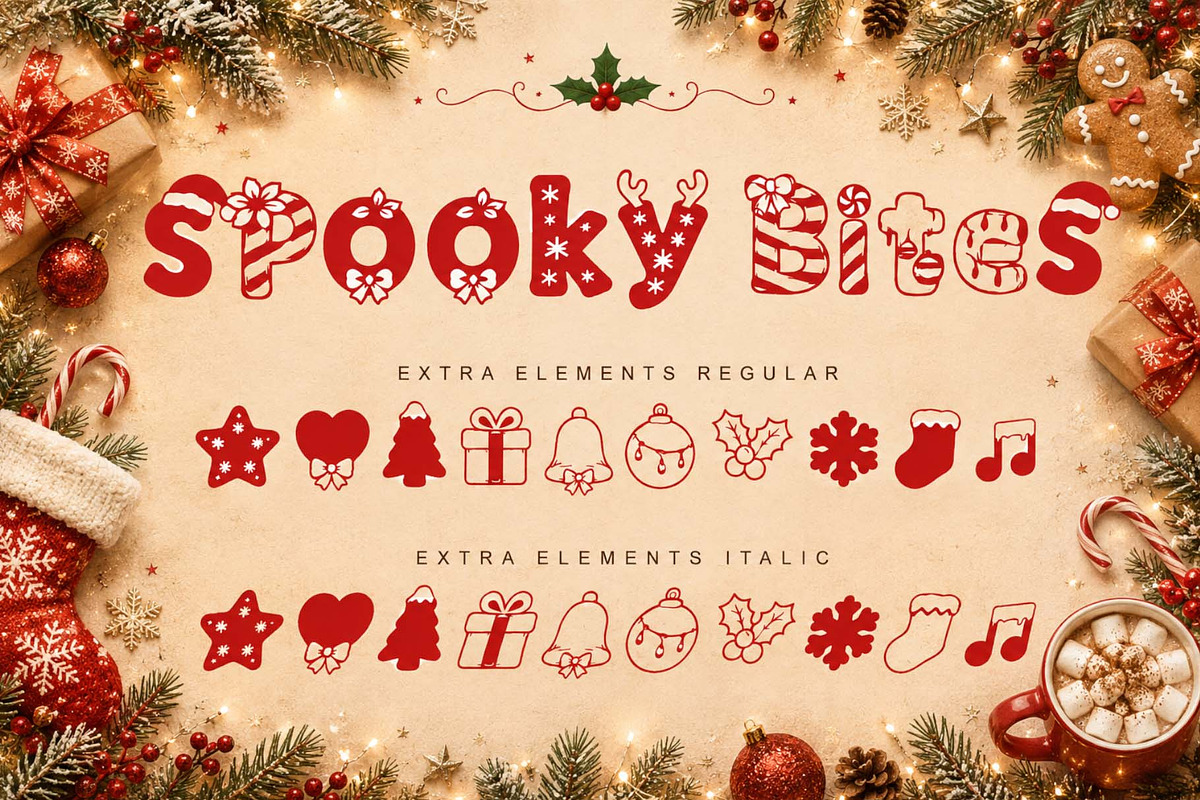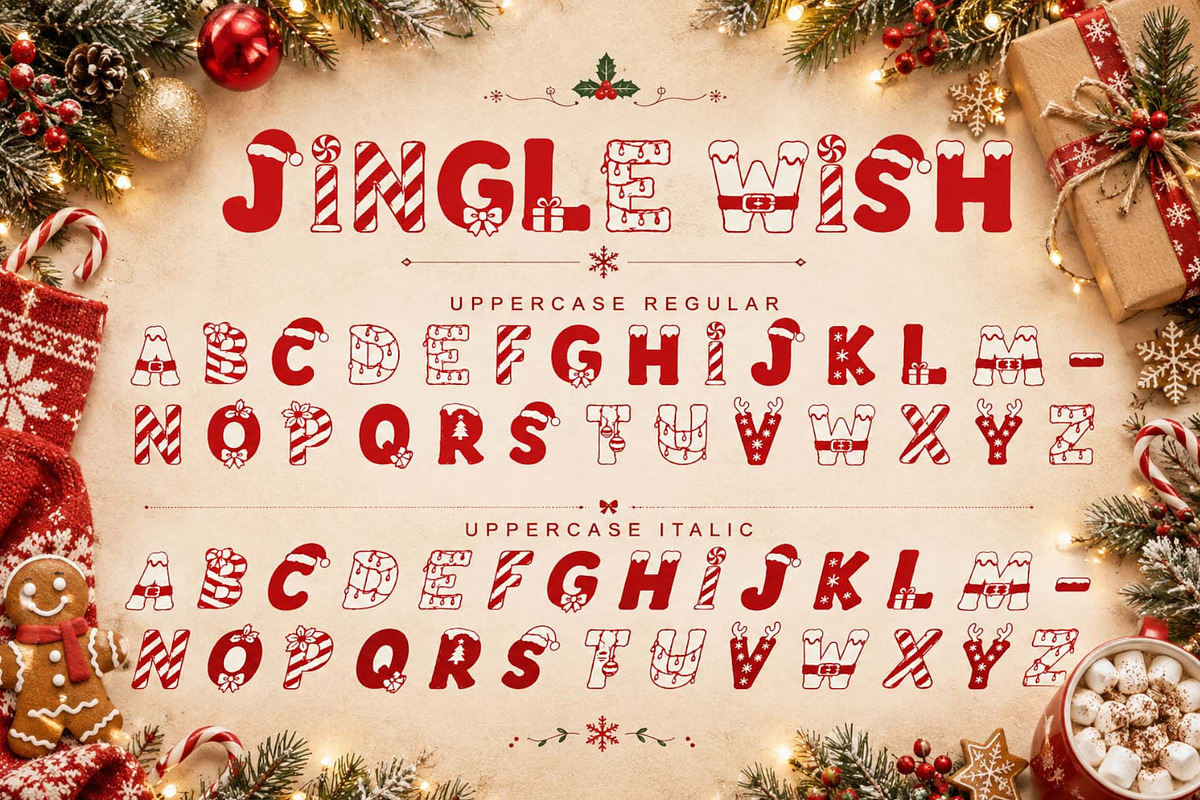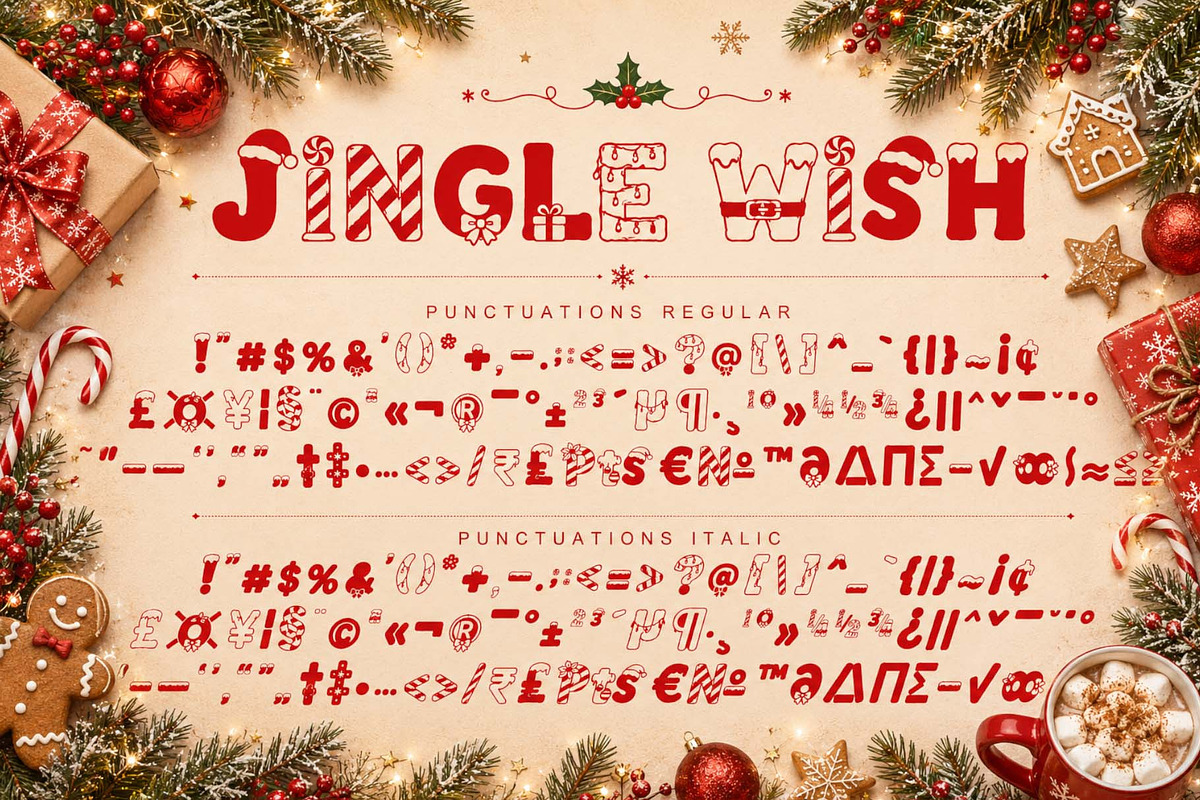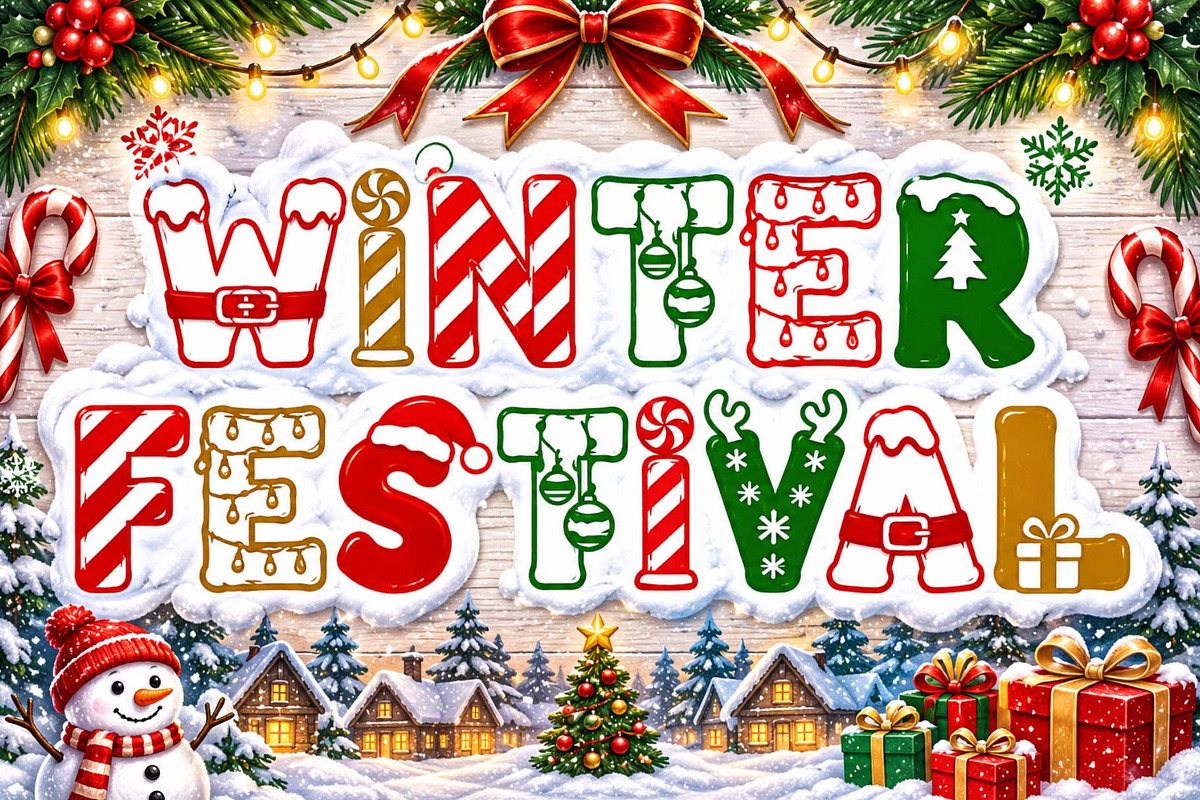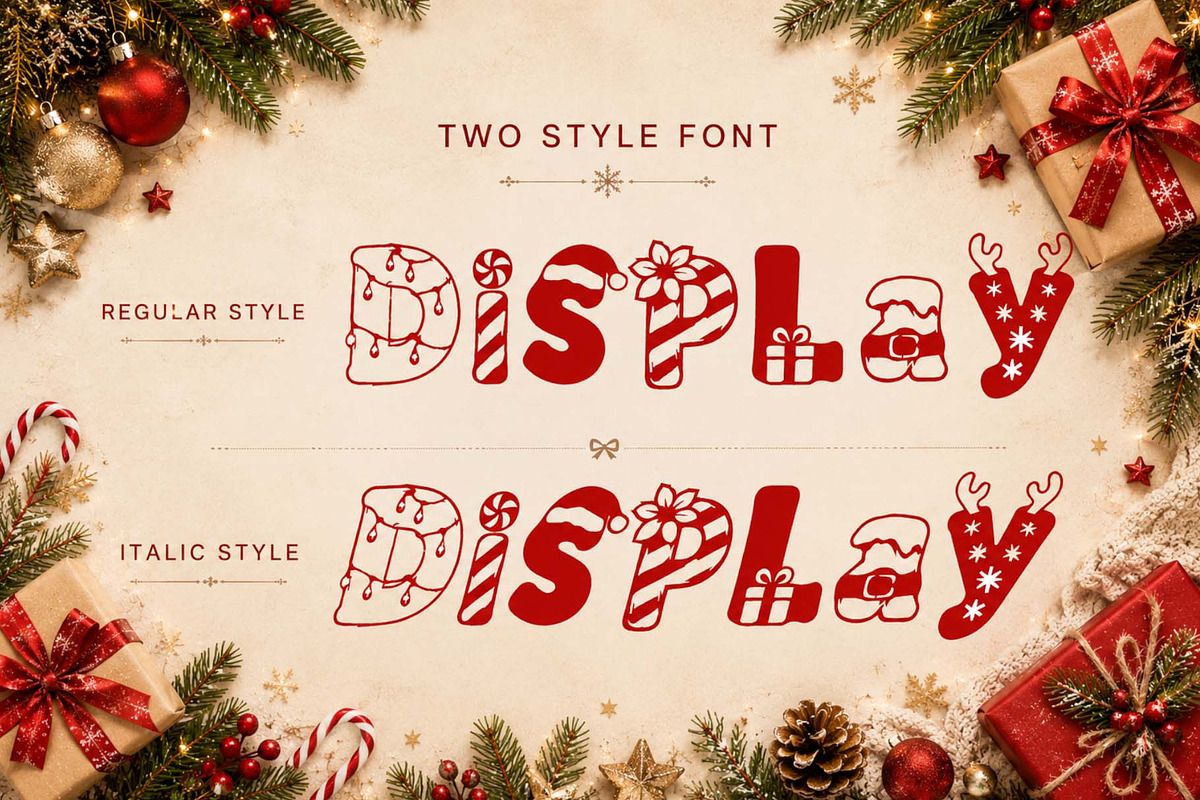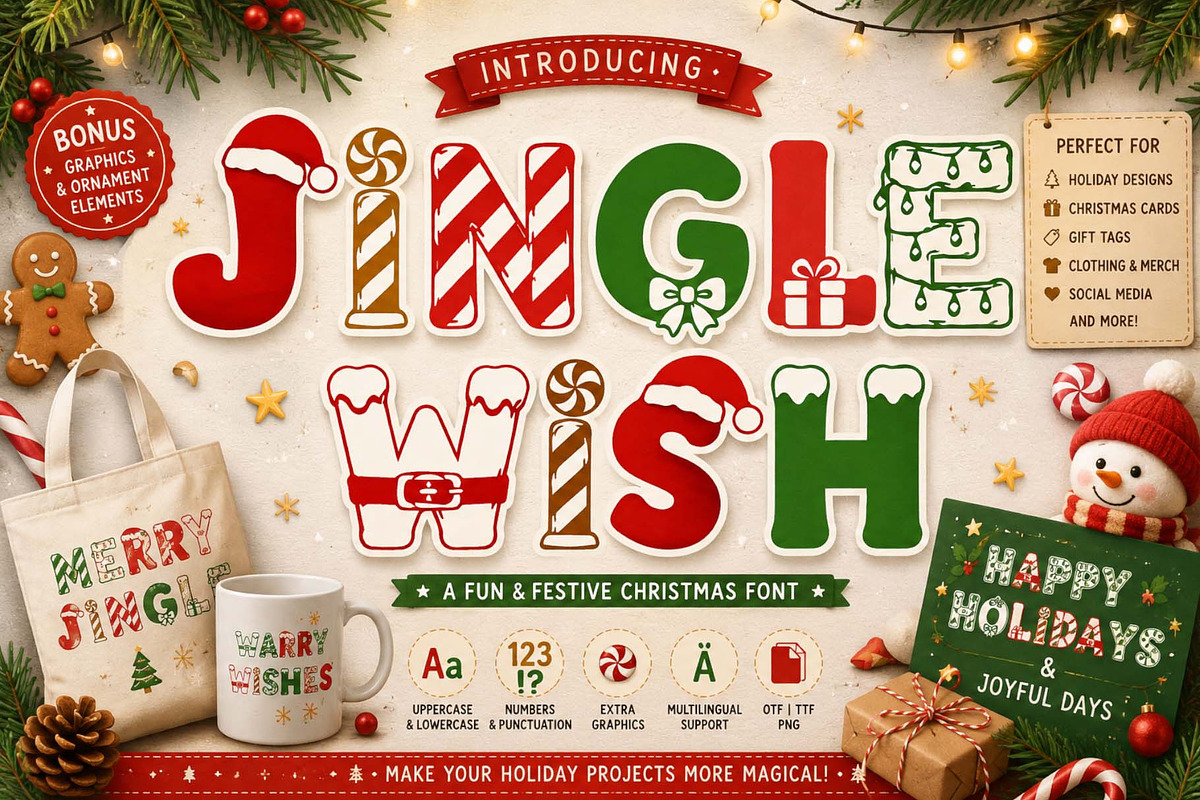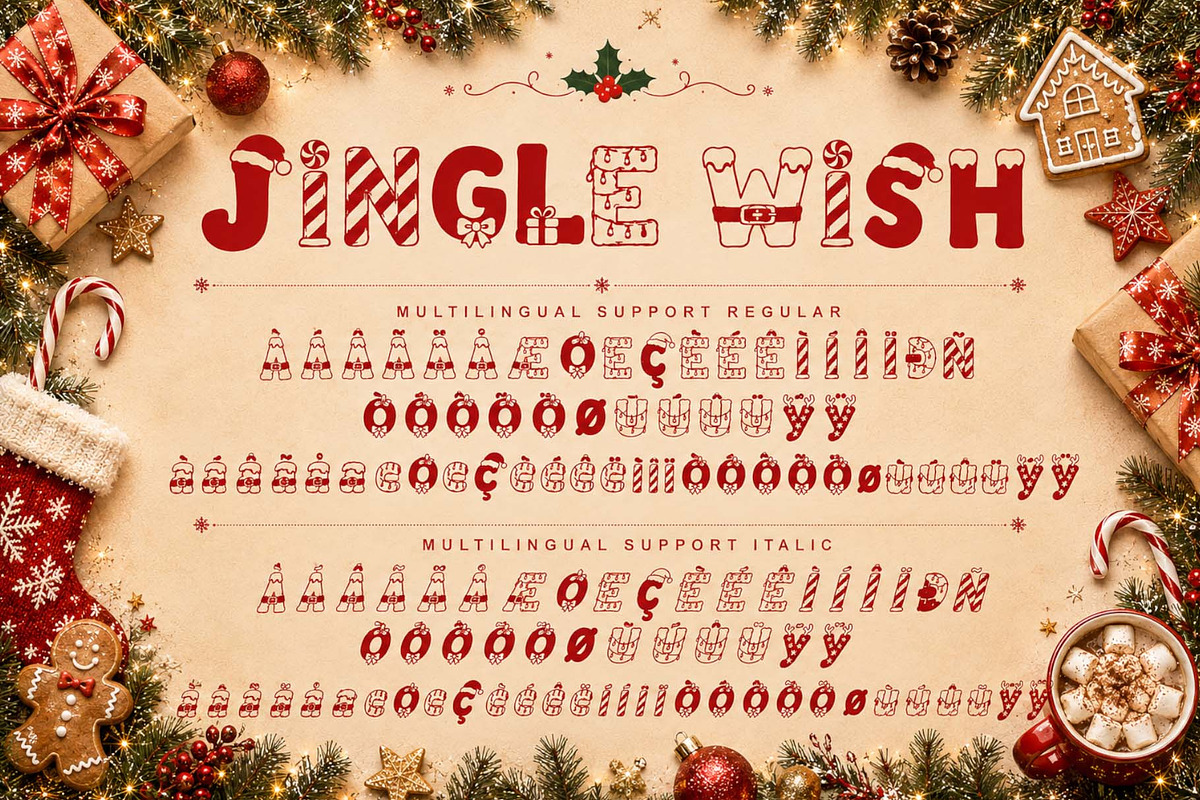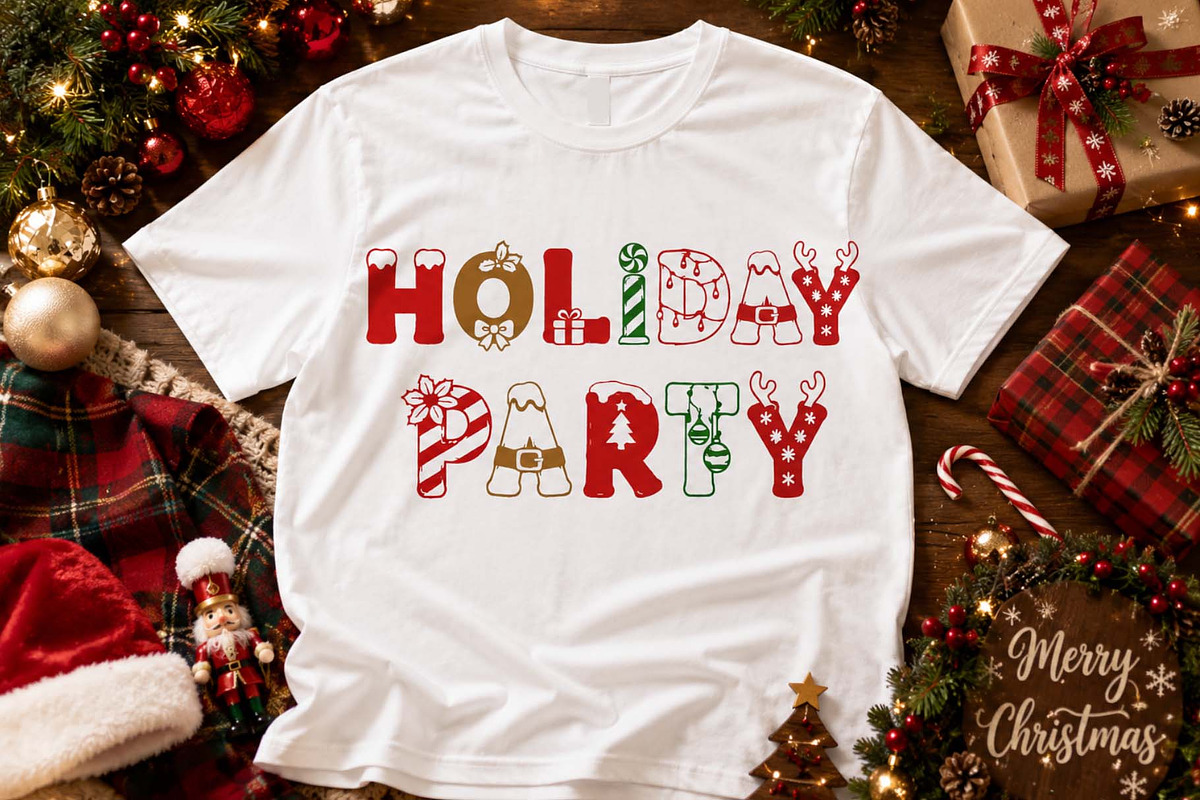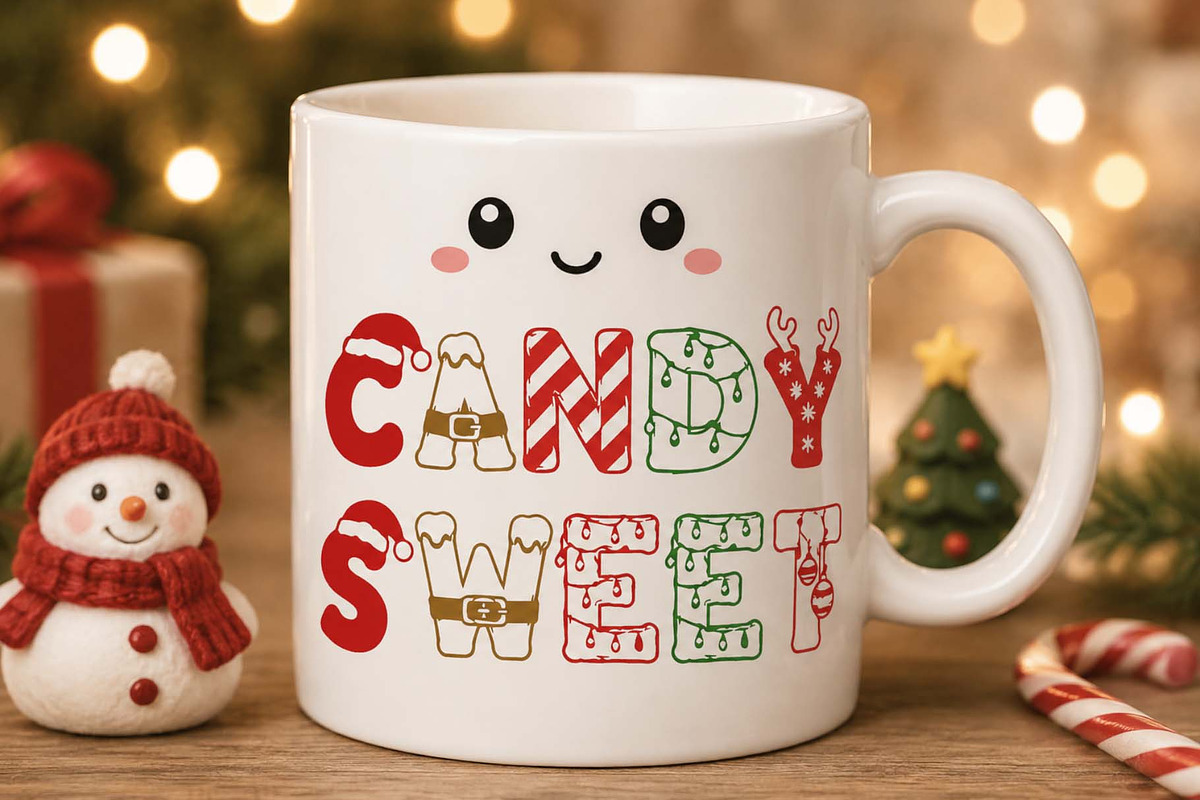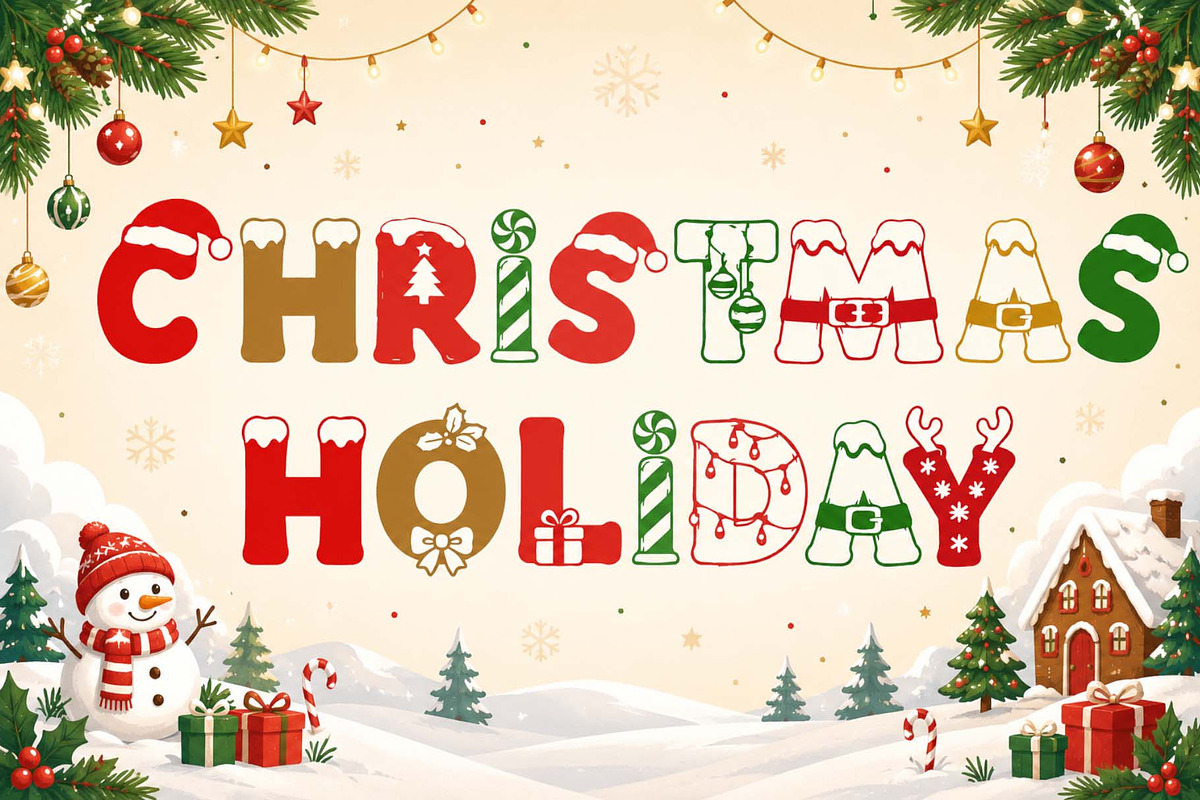
Jingle Wish
Jingle Wish is a cheerful and festive Christmas font designed to bring holiday joy to a variety of creative projects. Featuring playful candy-cane stripes, Santa-inspired details, and a vibrant red-and-green color palette, this font captures the enchanting spirit of the holiday season. Its bold yet unique style makes it the perfect choice for Christmas cards, gift tags, apparel, posters, crafts, and social media designs. Complete with uppercase and lowercase letters, numbers, punctuation, multilingual support, and festive graphic elements, Jingle Wish adds a touch of magic to your holiday projects.